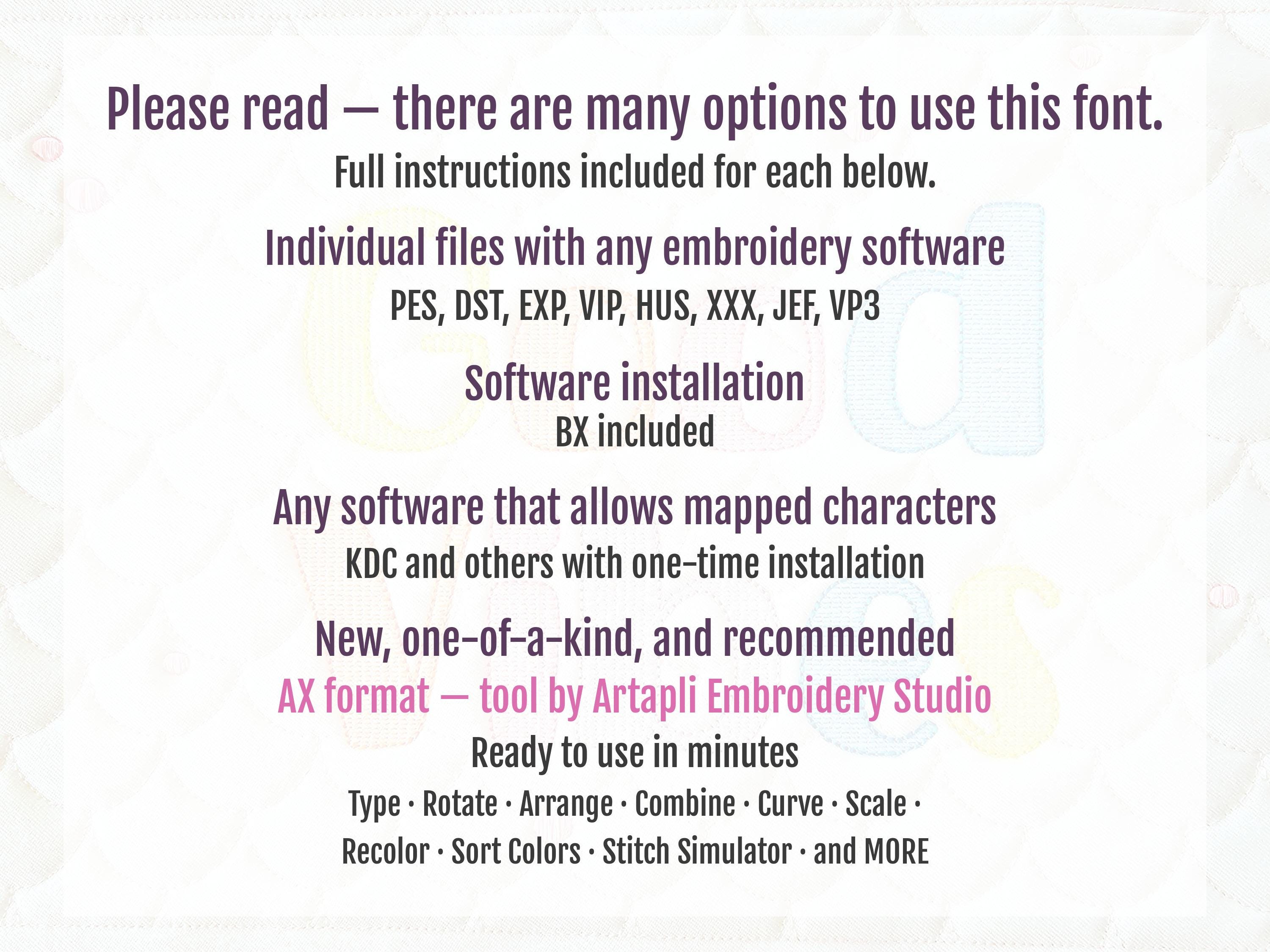
Light Stitch Font alphabet monogram machine embroidery designs multiple sizes 0.8 up to 3.5 inches kids transparent font quick light stitch
Uppercase and lowercase letters Aa-Zz, numbers 0-9, and punctuation.
The font is transparent, the background fabric looks through. Stunning effect!